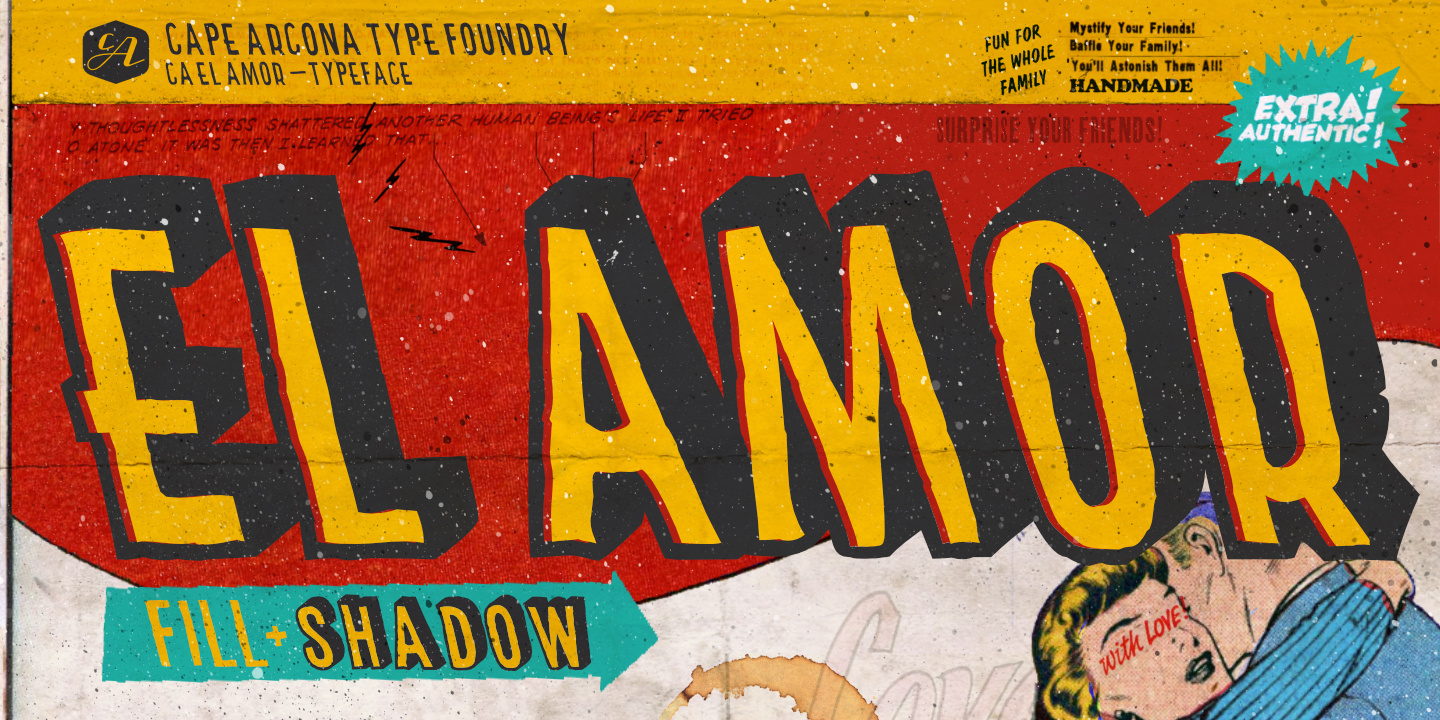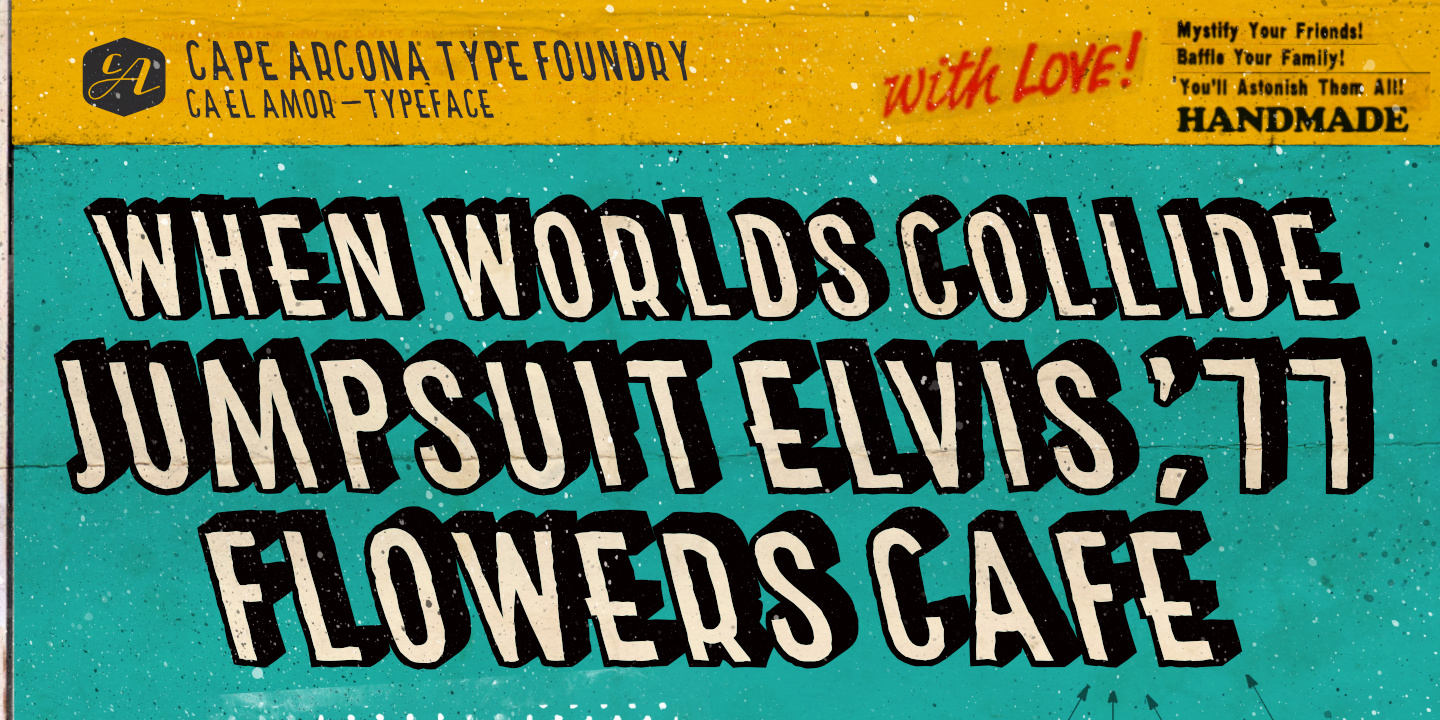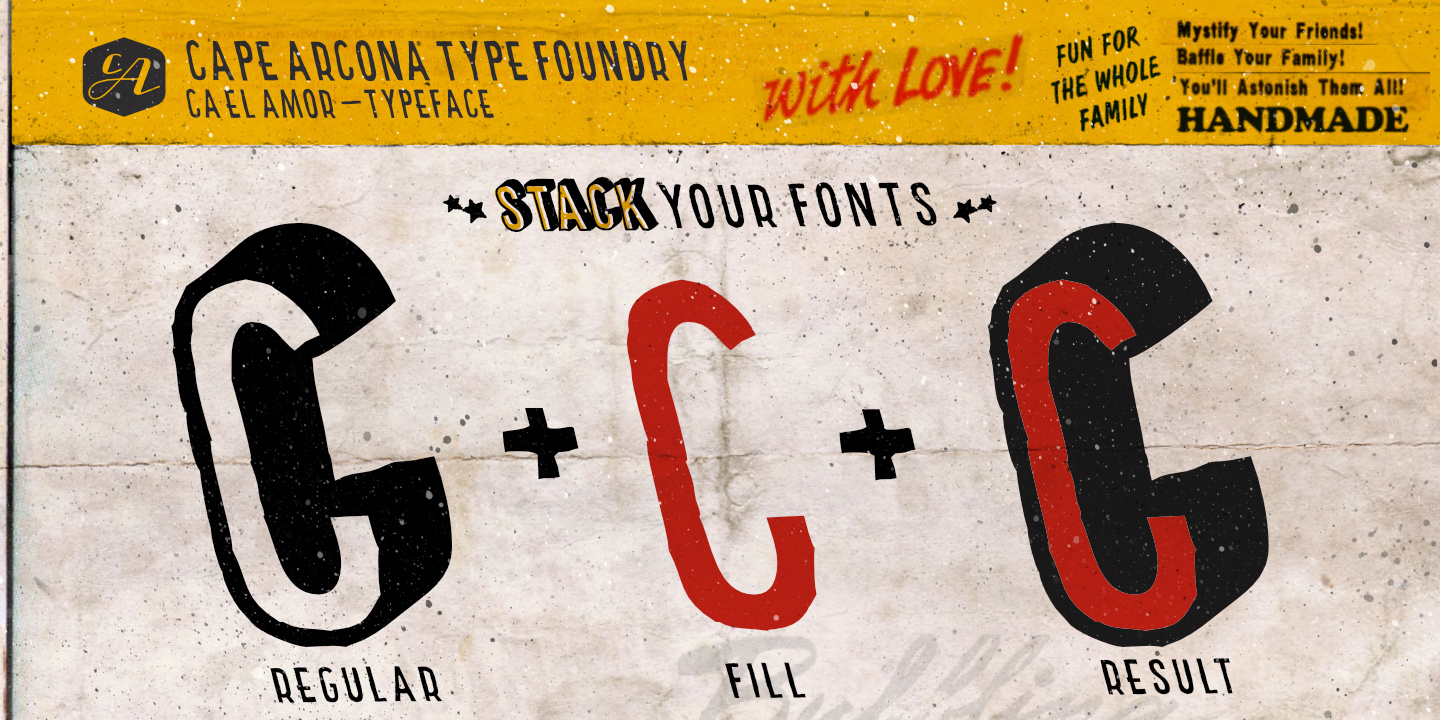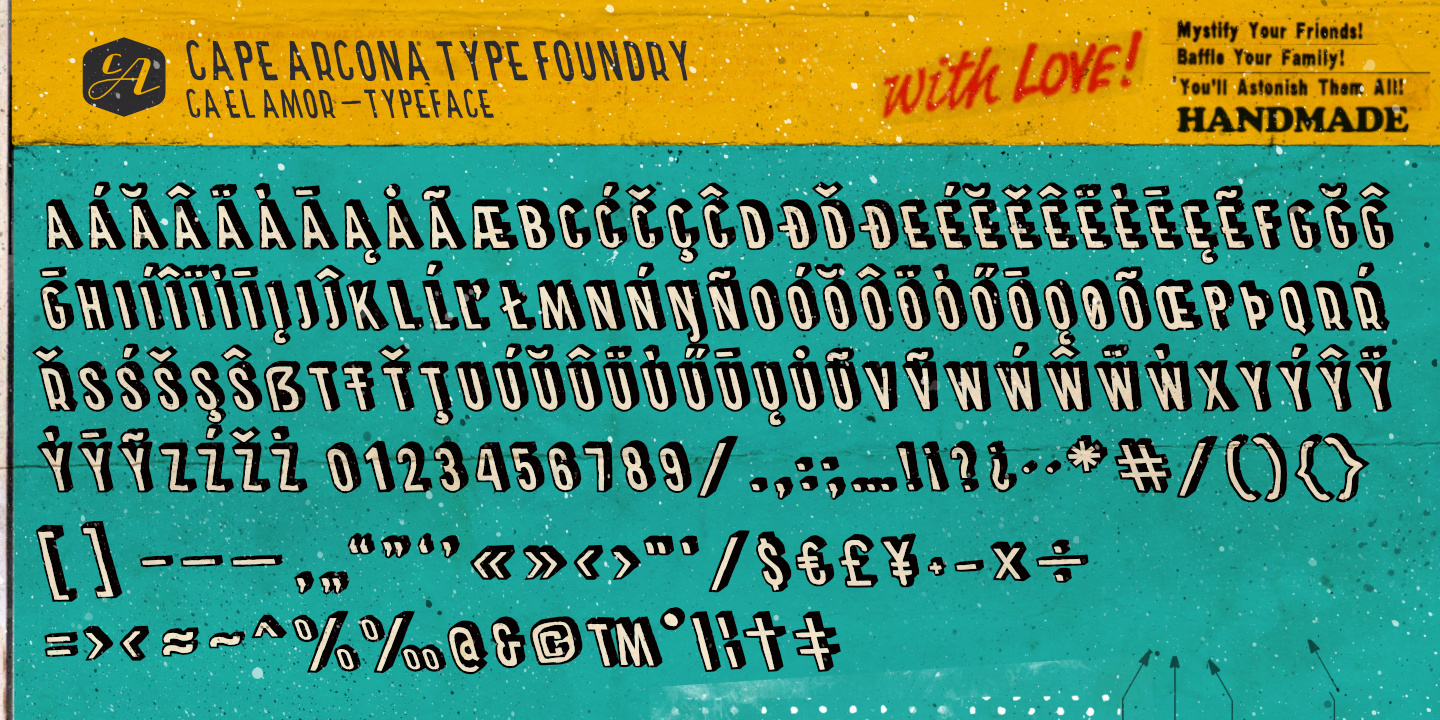
CA El Amor
This typeface has the most important ingredient of all: love.
So it’s not surprising that the font is called El Amor. It is a reversed oblique headline font that consists of two styles, “Regular” and “Fill”. You are welcome to experiment with them, together or alone. Write something with “Regular”, copy and paste it to another layer and switch to “Fill”. Give it a little offset if you like or place it straight on top, both works fine. You can also use the “Fill”. Style for body text, but do so at your own risk, spacing and kerning is optimized for the use with the “Regular” style, so be generous if the result looks not as even as text-font. Maybe you’ll discover the charm of a more dynamic spacing that fit perfectly with the vivid and crispy outlines.
Unlike other display fonts, CA El Amor features a giant character set covering most languages that you can write with a Latin alphabet.
El Amor is the perfect addition to anything related to comics, Halloween, and all things spooky.
Thomas Schostok